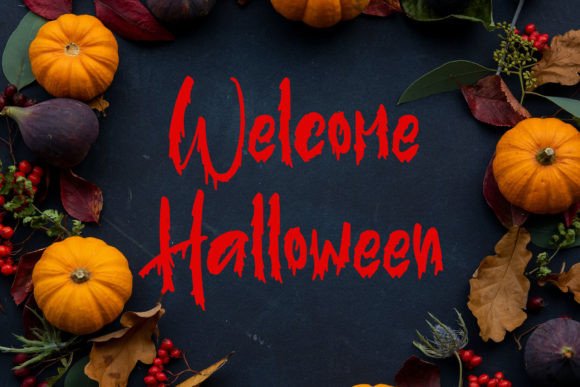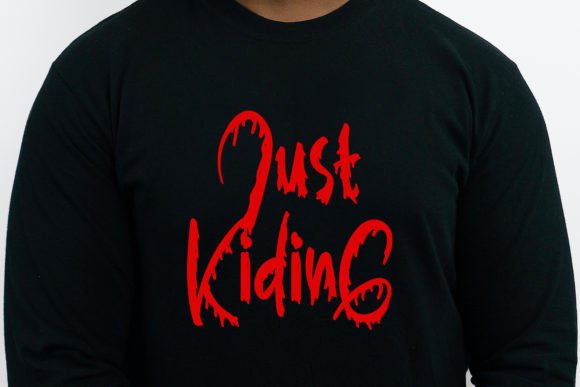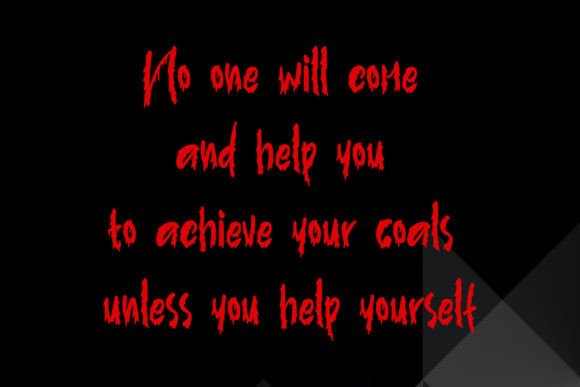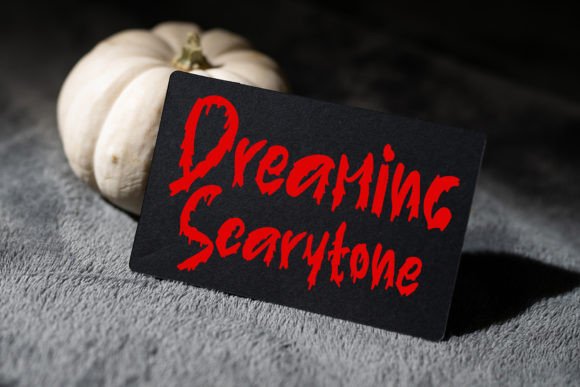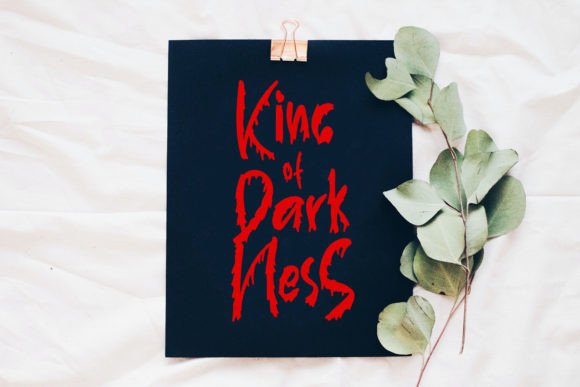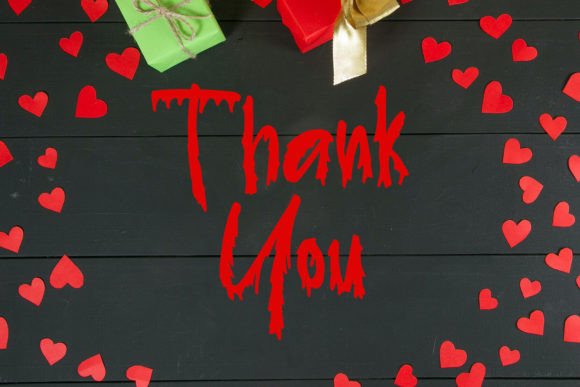
The Perfect Touch of Personality: Introducing Bloody Font
Have you ever been brainstorming ideas for a project, and suddenly, a spark of creativity hits you? Maybe it’s the perfect color palette, or perhaps it’s the perfect font. For me, it was the moment I stumbled upon Bloody Font. Its beautiful, handwritten style immediately caught my attention, and I knew I had to learn more.
Bloody Font is a stunning, high-quality font perfect for adding a personal touch to various projects, from product packaging and branding to magazines and social media posts. Its versatility makes it an invaluable tool for designers, allowing them to express themselves and bring their ideas to life. With Bloody Font, designers can add a unique, human touch to their work, making it stand out from the crowd.
Whether you’re working on a wedding invitation, a social media campaign, or a product label, Bloody Font is sure to elevate your design and leave a lasting impression. Its beauty and elegance make it a valuable addition to any designer’s toolkit, and its natural, handwritten feel is sure to captivate your audience.
Bloody Font Key Features
- Font Family: Bloody Font is a sans-serif font family designed for use in graphic design, digital art, and other creative applications.
- Character Set: The Bloody Font family includes a wide range of characters, including uppercase and lowercase letters, numbers, punctuation marks, and special characters.
- Unique Characteristics: Bloody Font features a unique, hand-drawn design with bold lines and distinctive letterforms, making it stand out from other sans-serif fonts.
Bloody Font Review
I must say, I was intrigued by the idea of a font that’s literally ‘bloody’ in design. At first glance, I thought it was going to be a gimmick, but I was pleasantly surprised. ✨
The font’s unique design is a great conversation starter. It’s bold, edgy, and attention-grabbing.
It’s perfect for projects that need a bit of edge, like horror movies, video games, or even a punk rock band’s logo.
The font may not be suitable for every project. Its edgy design may be off-putting for more conservative audiences.
Some users may find the font too distracting or overwhelming, especially when used in large quantities.
It’s not suitable for projects that require a more professional or elegant look, like business presentations or resumes.
⚠️ Be cautious when using this font in a text-heavy design, as it can be difficult to read.
While Bloody Font may not be for everyone, it’s a great option for designers who want to add some edge to their projects. With its unique design and customization options, it’s a versatile font that can add some excitement to your work. However, be mindful of its limitations and use it sparingly to avoid overwhelming your audience.
Common Use Cases for Bloody Font
Bloody Font is commonly used for horror-themed designs, such as Halloween decorations, haunted house invitations, and zombie apocalypse graphics. It’s also used for dramatic or attention-grabbing headlines, titles, and slogans.